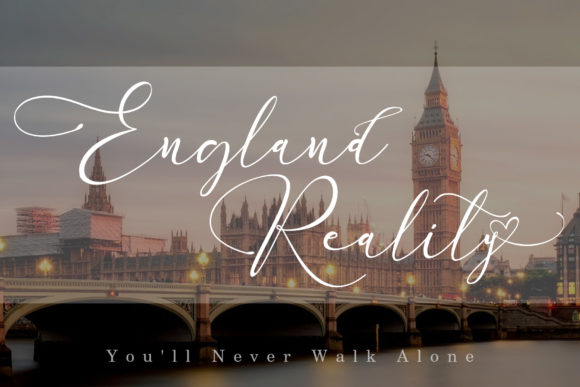
Prepare yourself to be captivated by the enchanting England Reality font, a masterpiece crafted by the visionary aldedesign. This exquisite script font will transform your creative endeavors into breathtaking works of art.
With its graceful lines and captivating curves, the England Reality font dances across the page, inviting you to express your individuality and creativity. Its fluid strokes possess an organic charm that breathes life into your words, capturing the essence of handwritten elegance.
Unlike ordinary fonts that blend into the background, England Reality commands attention, making it the perfect choice for adding a touch of sophistication to your designs. Whether you're a seasoned designer or just starting your creative journey, this font will elevate your work to new heights.
Immerse yourself in the world of England Reality, where every letter tells a story. Its varying baseline and smooth transitions create a sense of depth and movement, captivating your audience from the very first glance.
Don't settle for the mundane; embrace the extraordinary with England Reality. Let your imagination soar as you craft captivating logos, enchanting invitations, and awe-inspiring social media posts that will leave an unforgettable impression.
The possibilities are endless with England Reality. Unleash your creativity and let this stunning script add a touch of magic to your designs. Download England Reality today and embark on a journey of limitless creative expression.